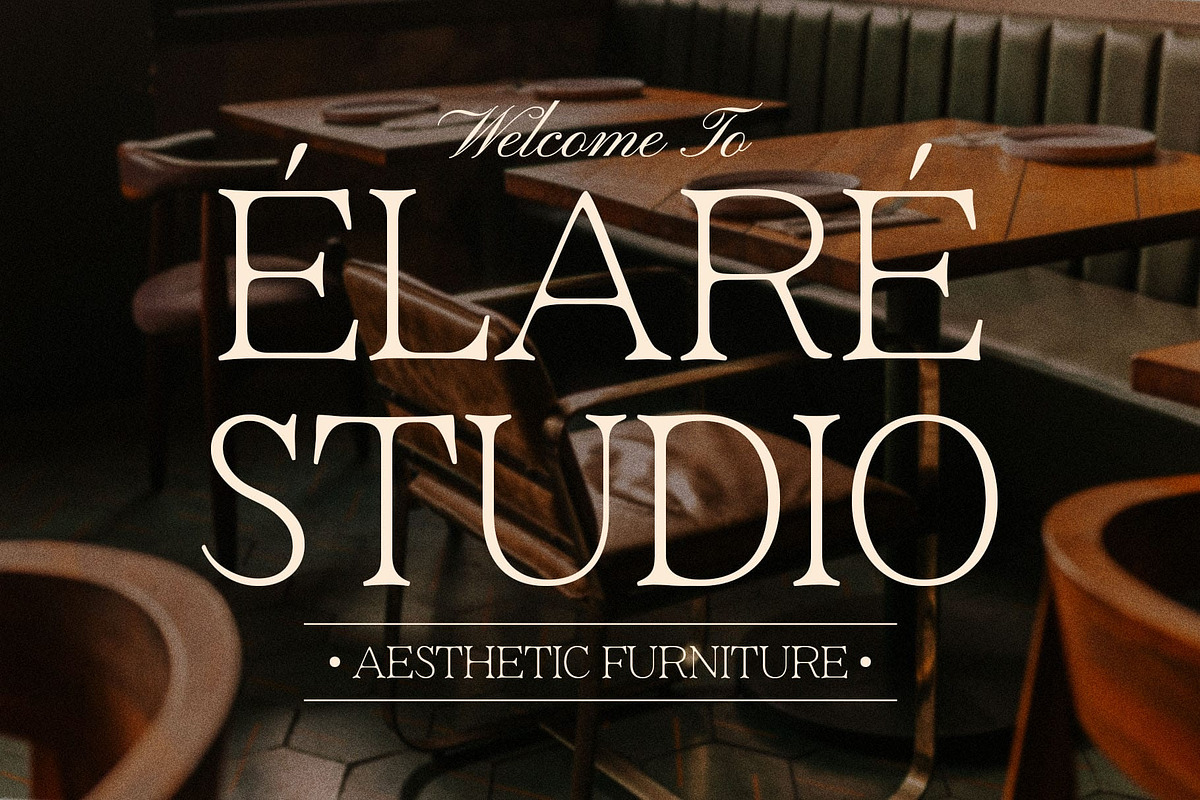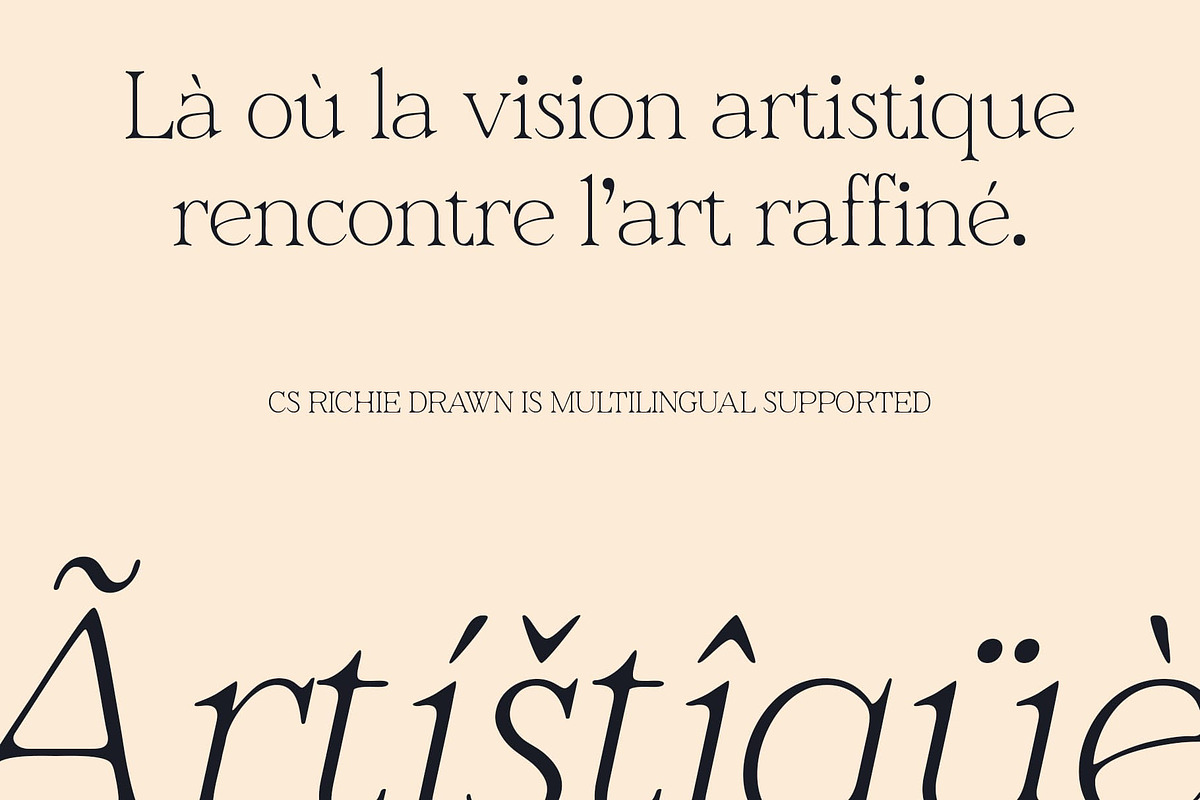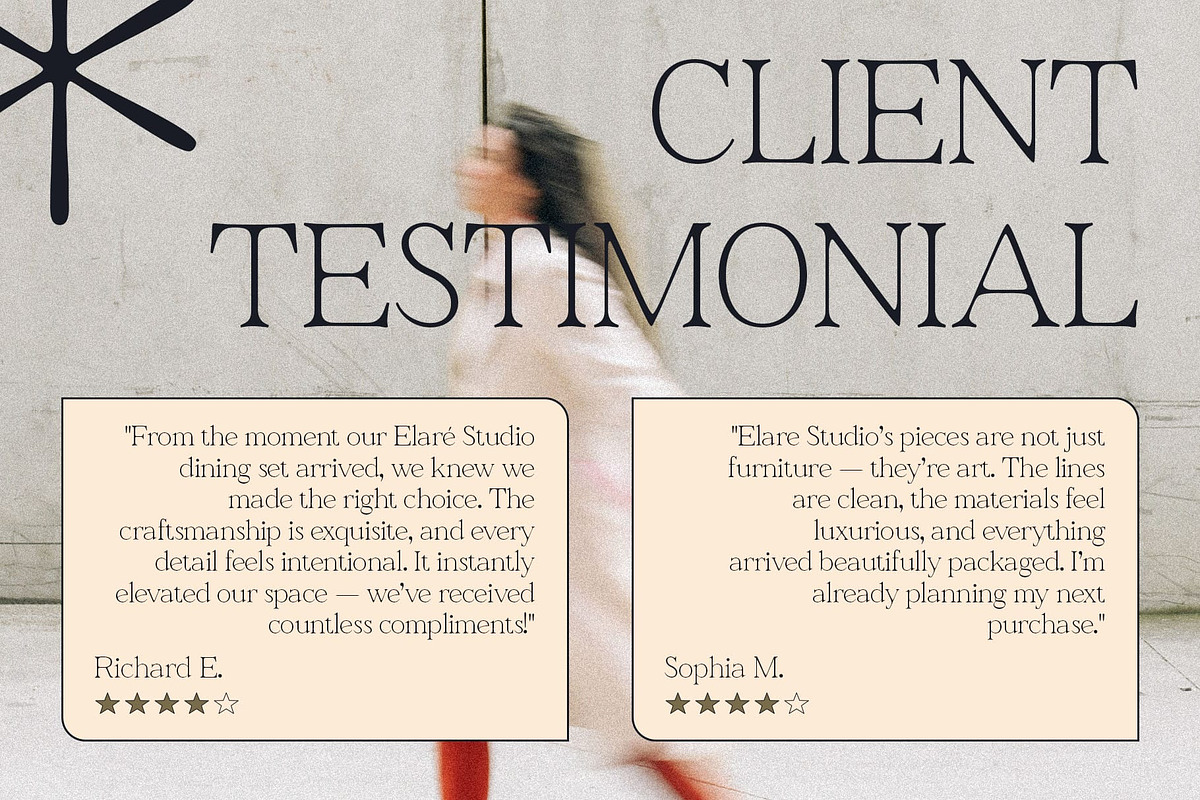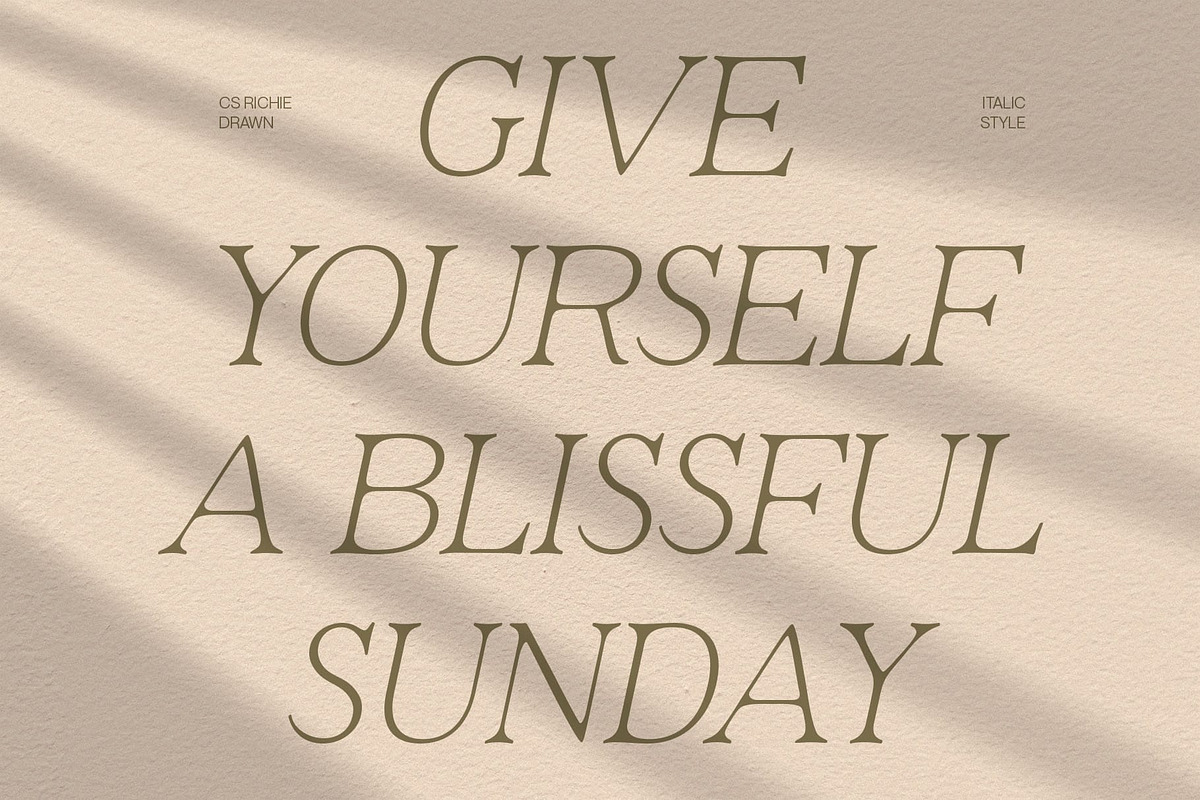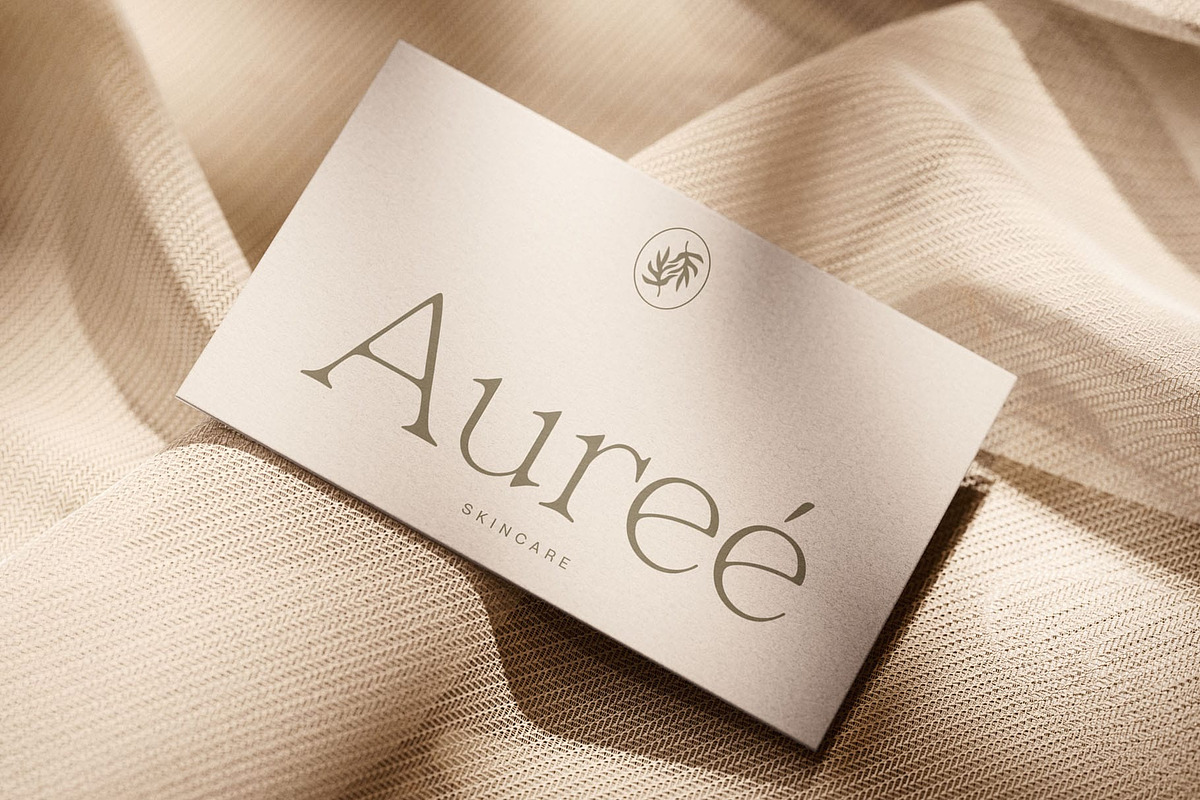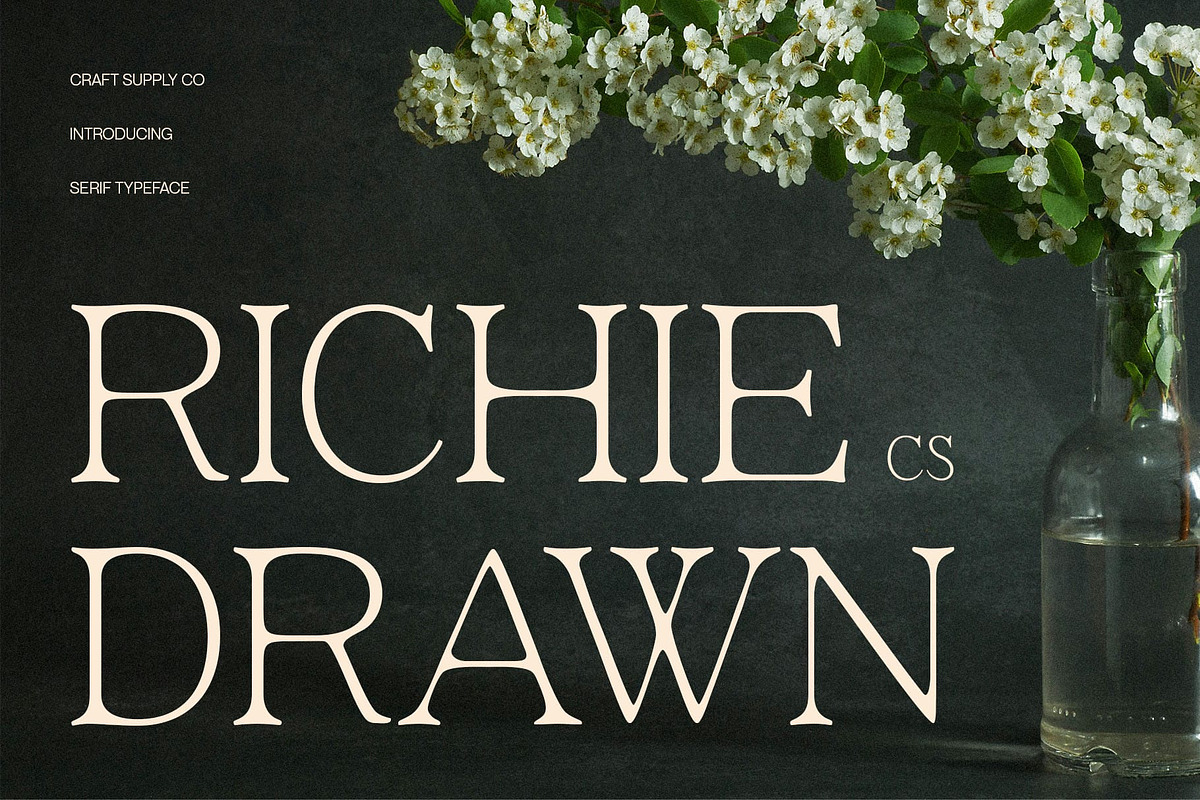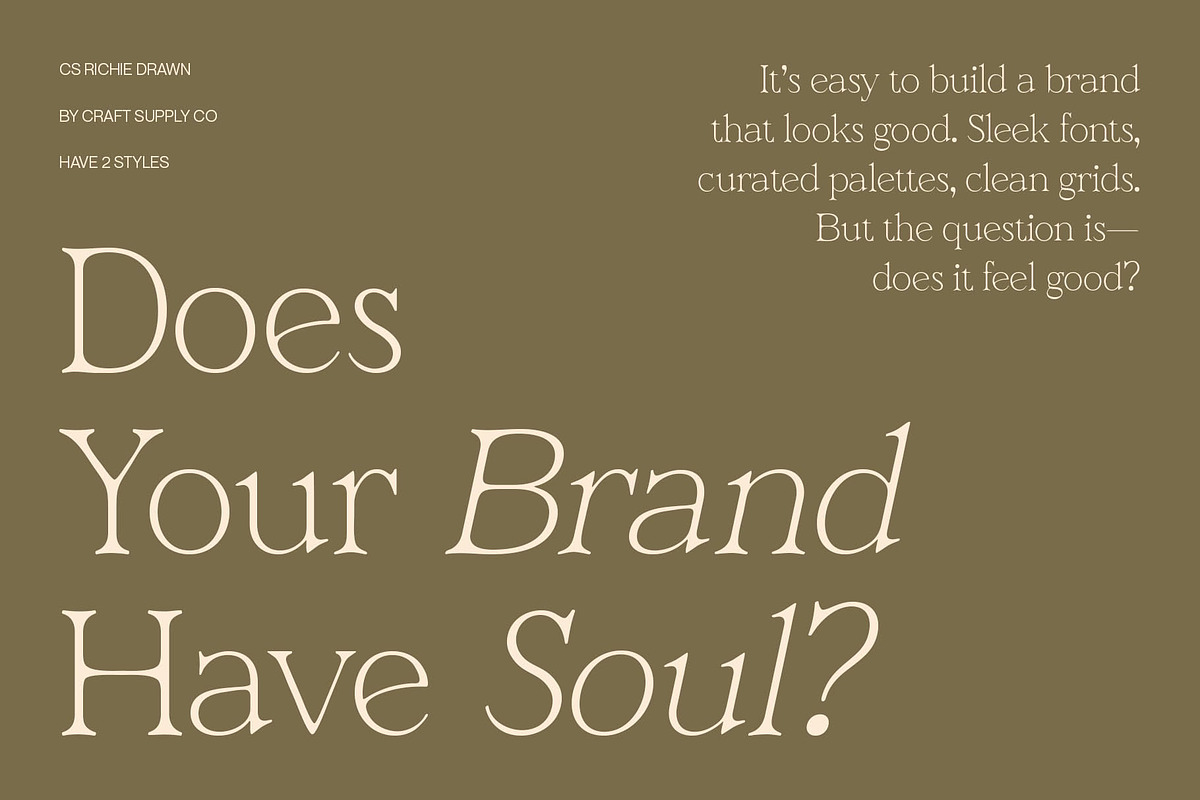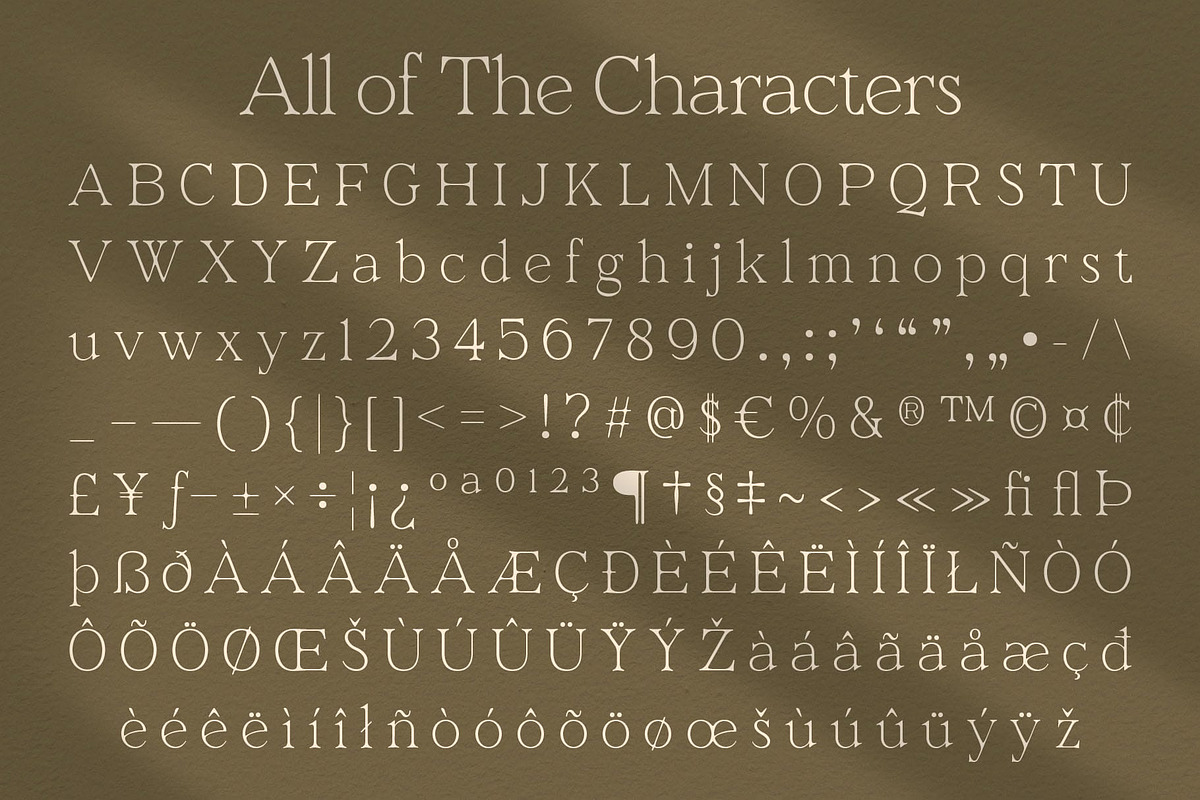
CS Richie Drawn
CS Richie Drawn – Modern Elegance with a Handcrafted Touch
Modern Serif with Drawn Effect This is a modern serif display font that blends sleek minimalism with subtle handcrafted charm. With its slim proportions, refined curves, and balanced structure, it brings a fresh and contemporary look to the classic serif form.
Clean Lines with a Luxurious Aesthetic The font’s crisp lines and minimalist construction convey sophistication and clarity, while its soft drawn effect introduces warmth and individuality. This gentle texture adds a layer of depth, making the font feel both luxurious and approachable.
Subtle Details for Visual Refinement This aesthetic font excels in delivering quiet elegance. The carefully considered spacing and graceful letterforms make it ideal for applications that require a touch of finesse—without overpowering the design. Its balance of simplicity and detail supports polished, aesthetically pleasing layouts.
Perfect for Editorial and Branding Use Ideal for editorial headlines, fashion magazines, lifestyle blogs, or premium branding, this contemporary font elevates design with an understated yet distinctive voice. Whether used in packaging, logos, or visual identity systems, this font brings modern elegance with a handcrafted soul.